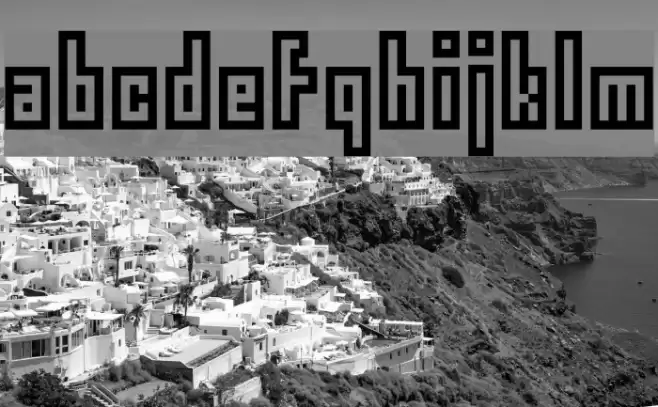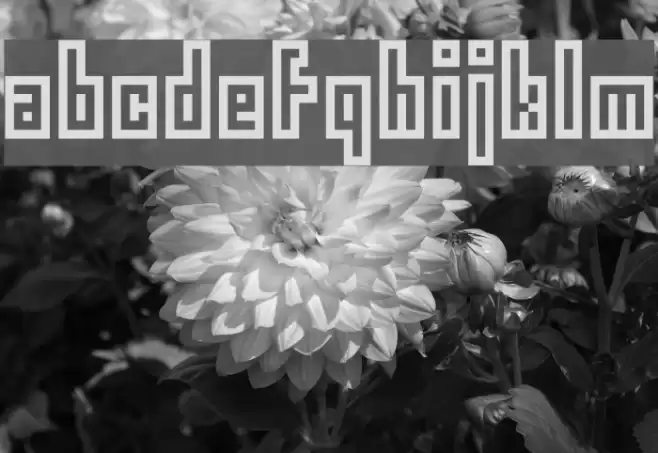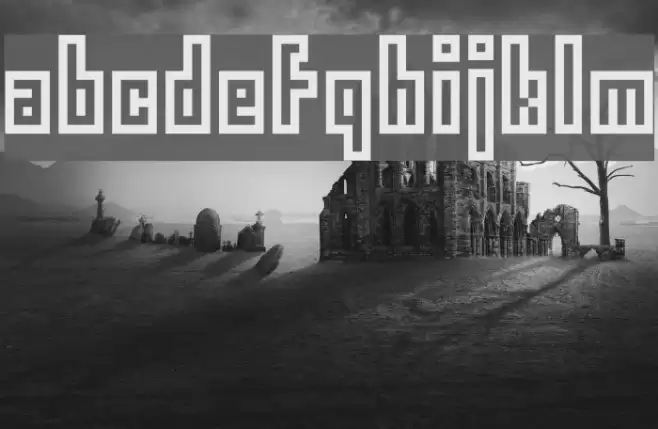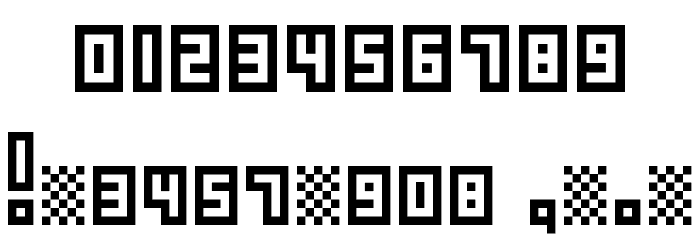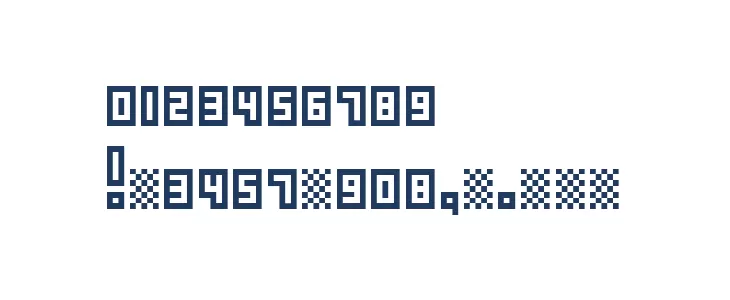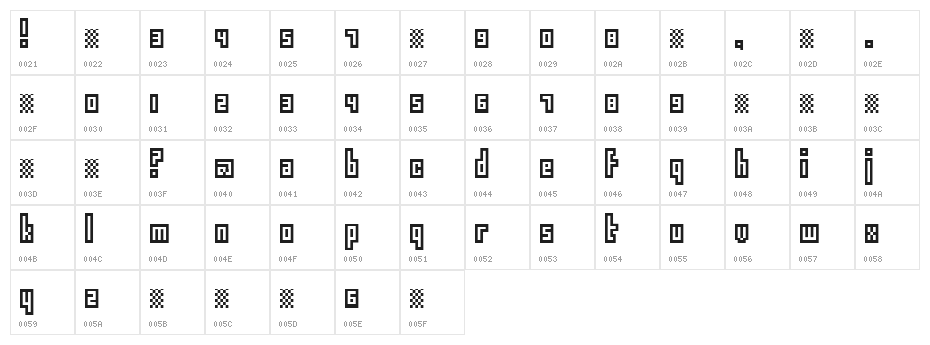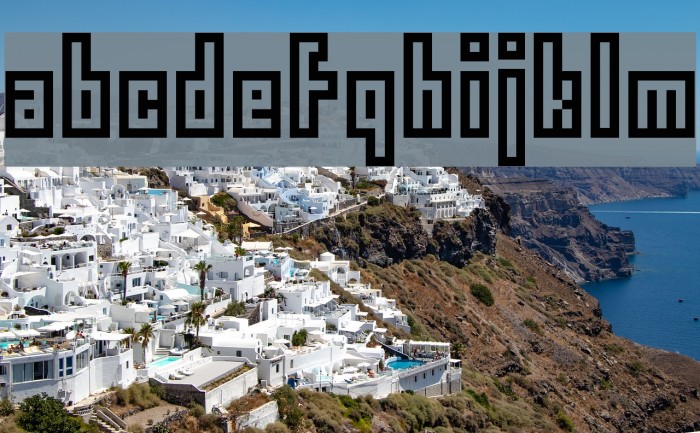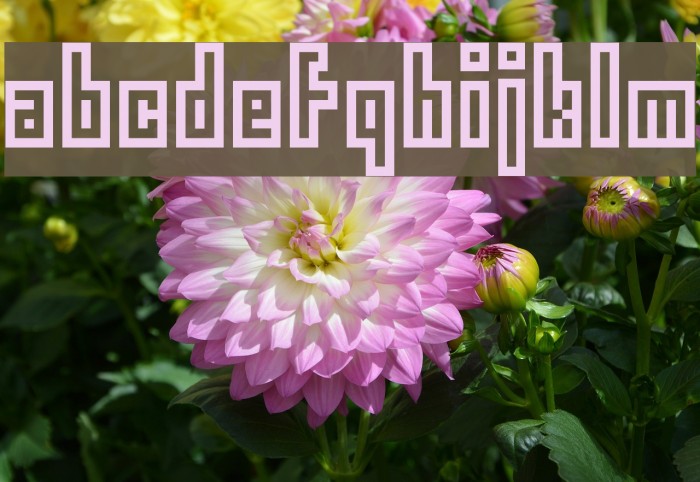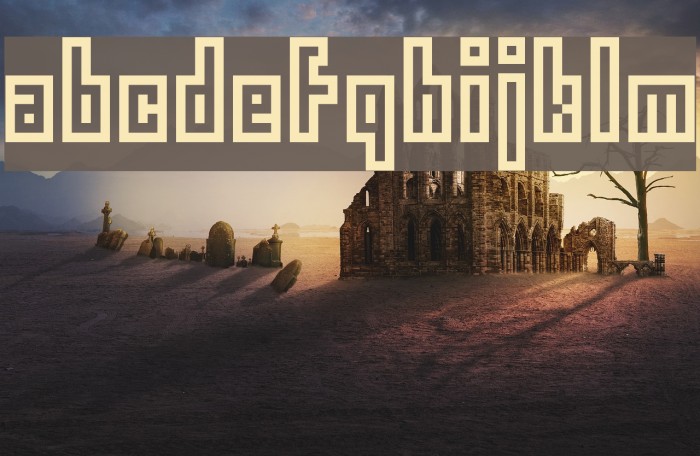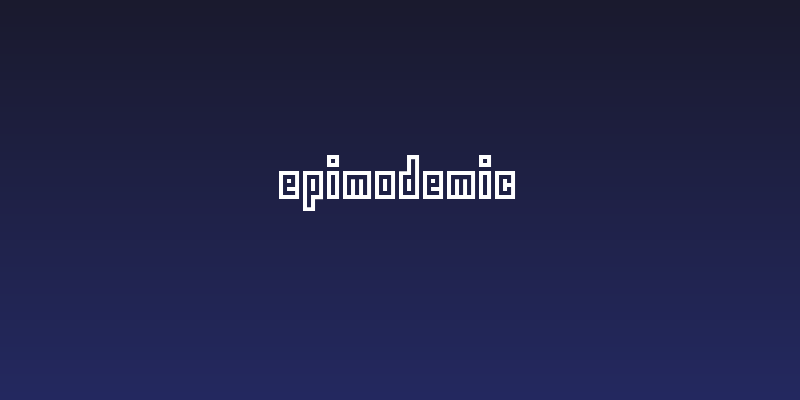
epimodemic Font
epimodemic Description
This font features a bold and geometric design with a pixelated, block-like structure. Each character is composed of thick, uniform lines that create a digital, retro aesthetic reminiscent of early computer graphics or video games. The uppercase and lowercase letters share a similar height and width, contributing to a monospaced appearance. The numbers and special characters maintain the same style, ensuring consistency across all glyphs. The font's unique style makes it stand out, offering a playful yet structured look that is both modern and nostalgic.
A bold, geometric font with a pixelated, retro digital style from Outline fonts.
- Proposed Projects: Ideal for video game design, tech-themed posters, retro branding, and digital art projects.
- Overall Style: Retro, Digital